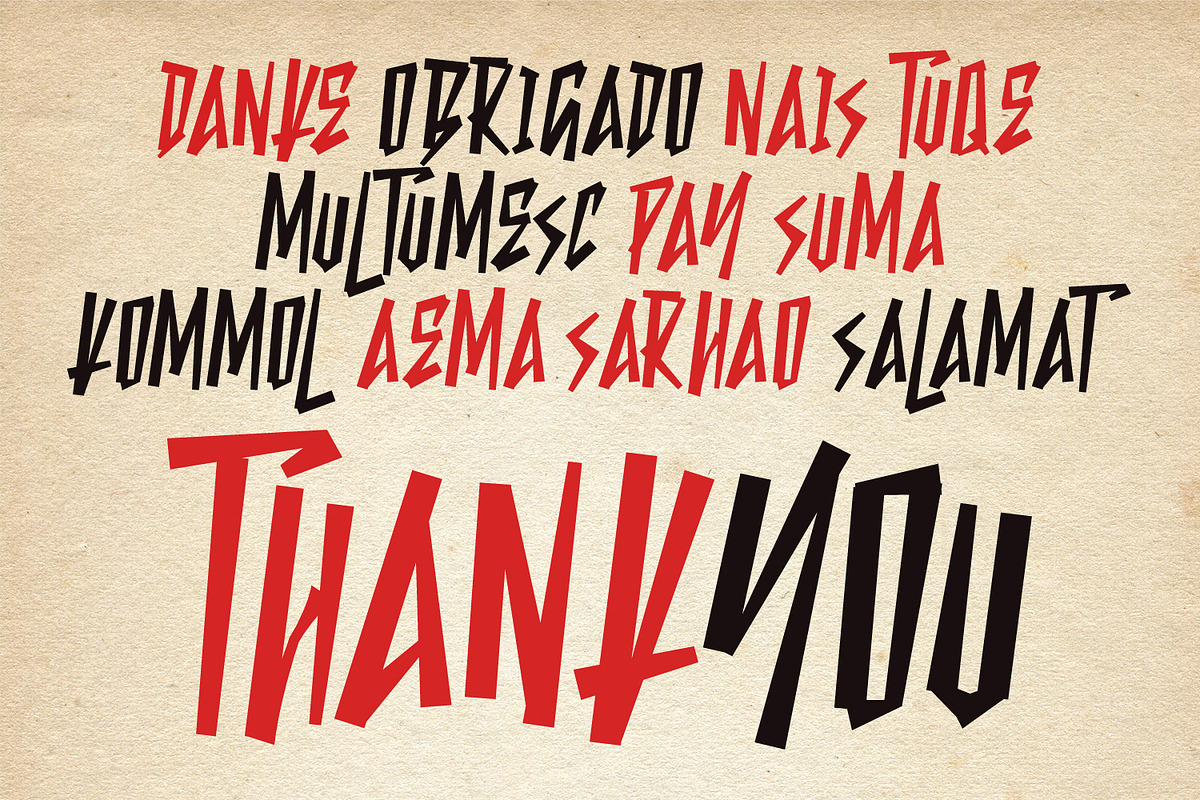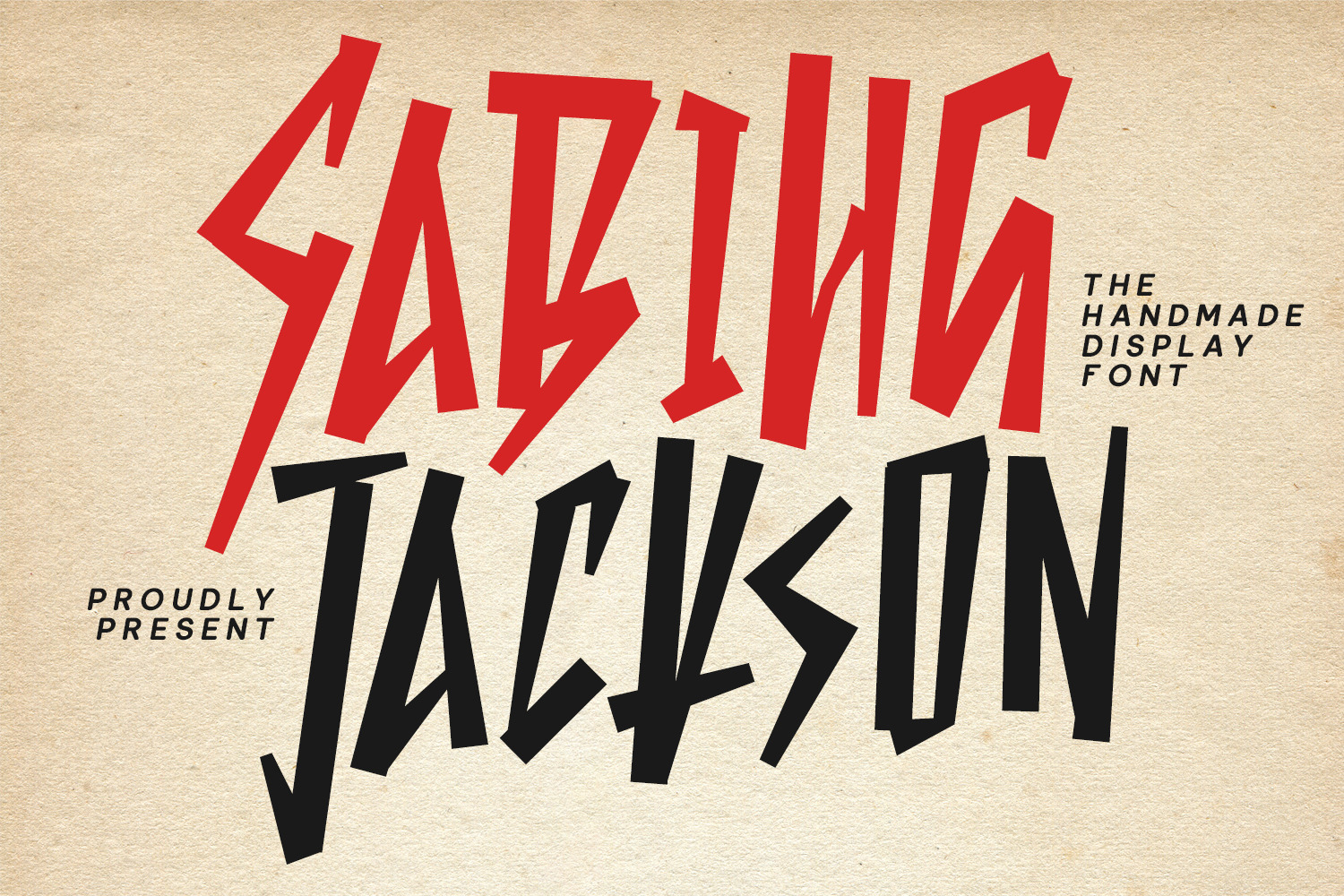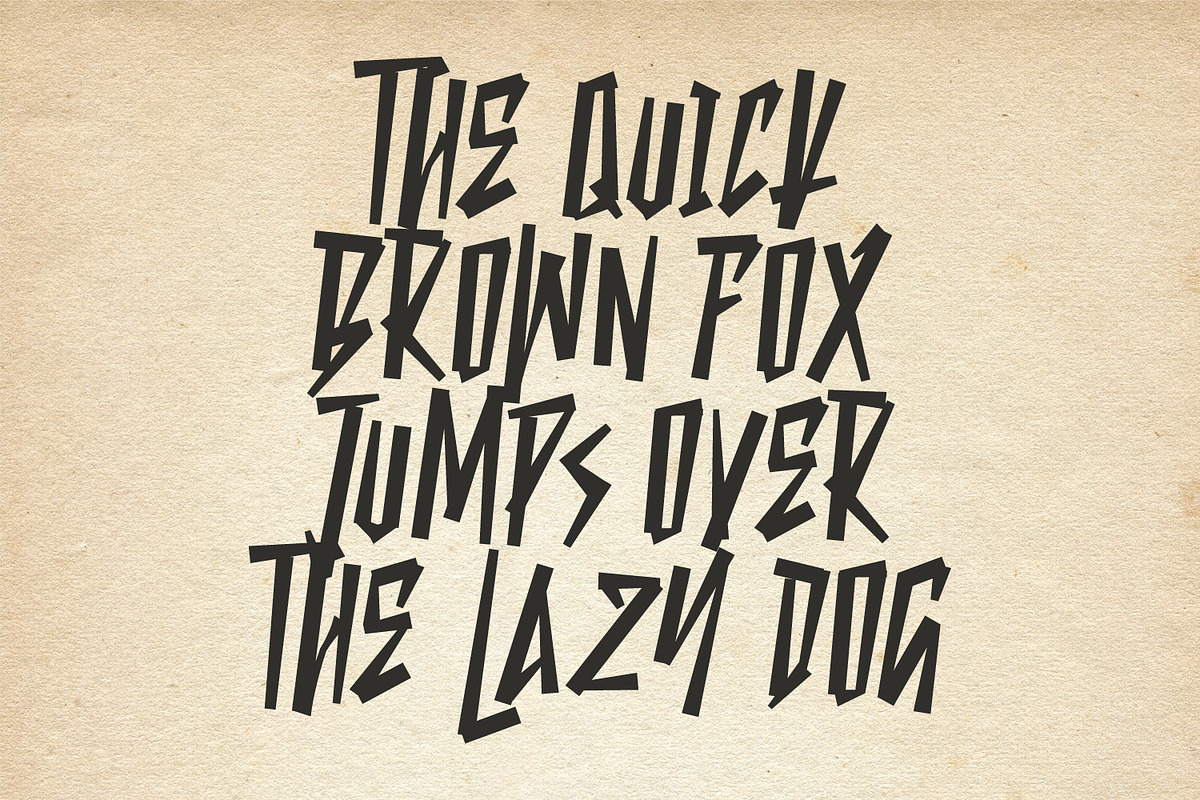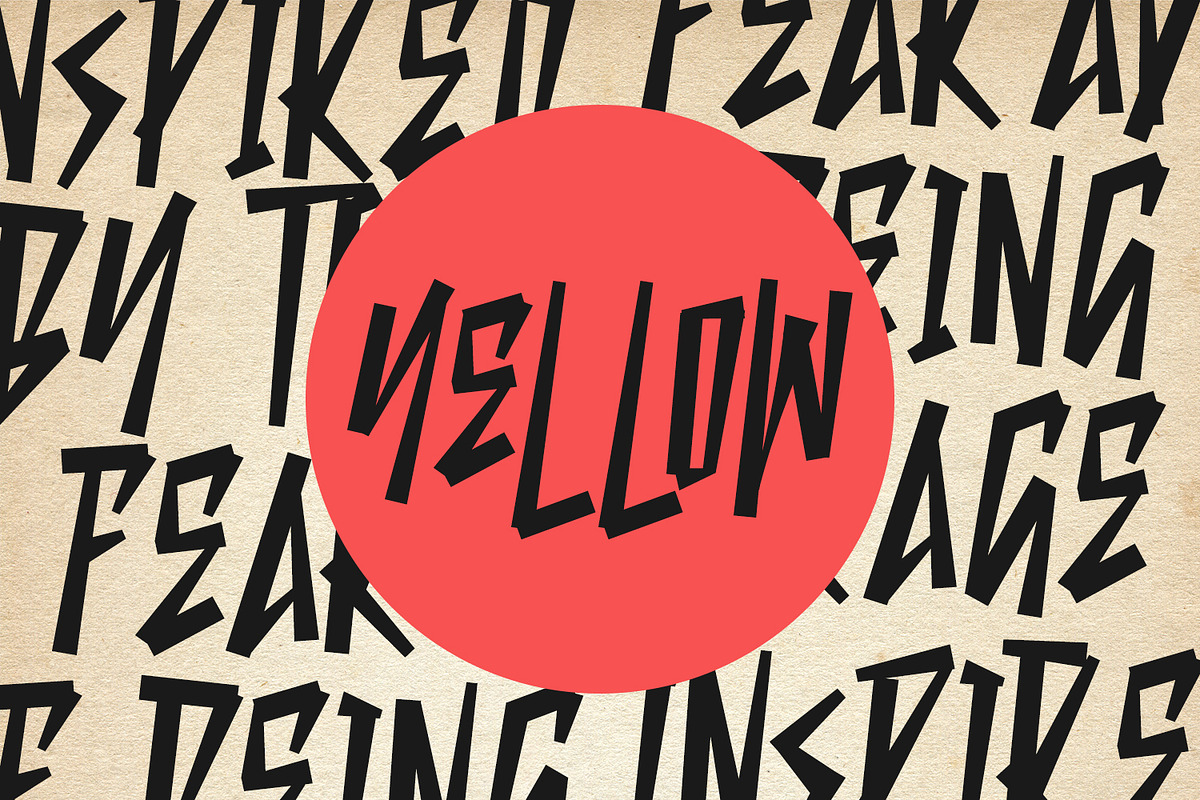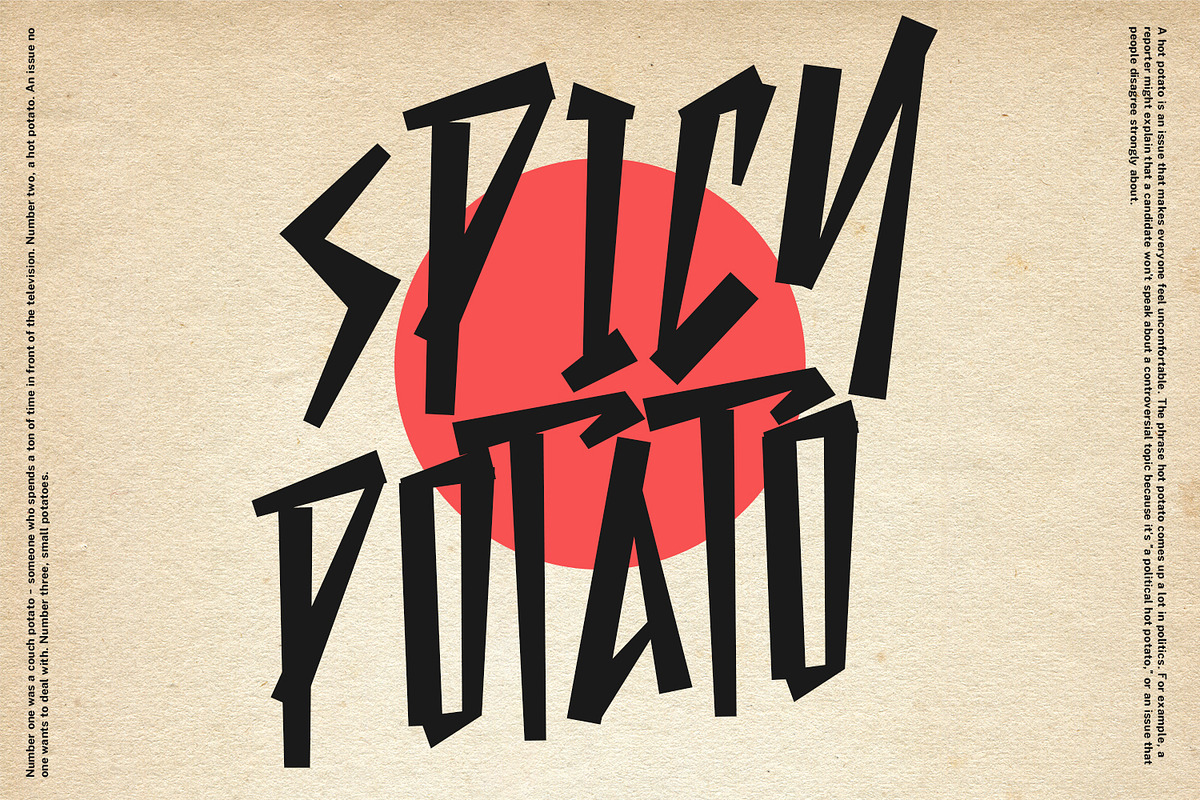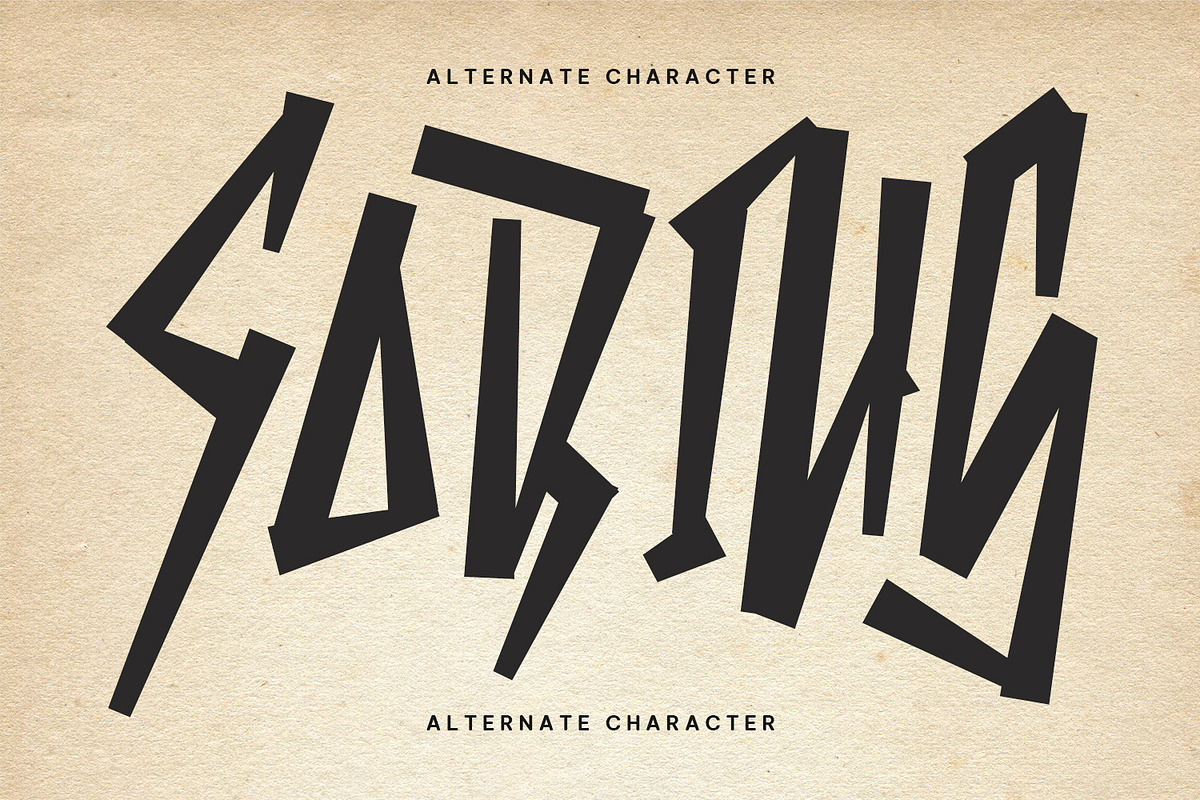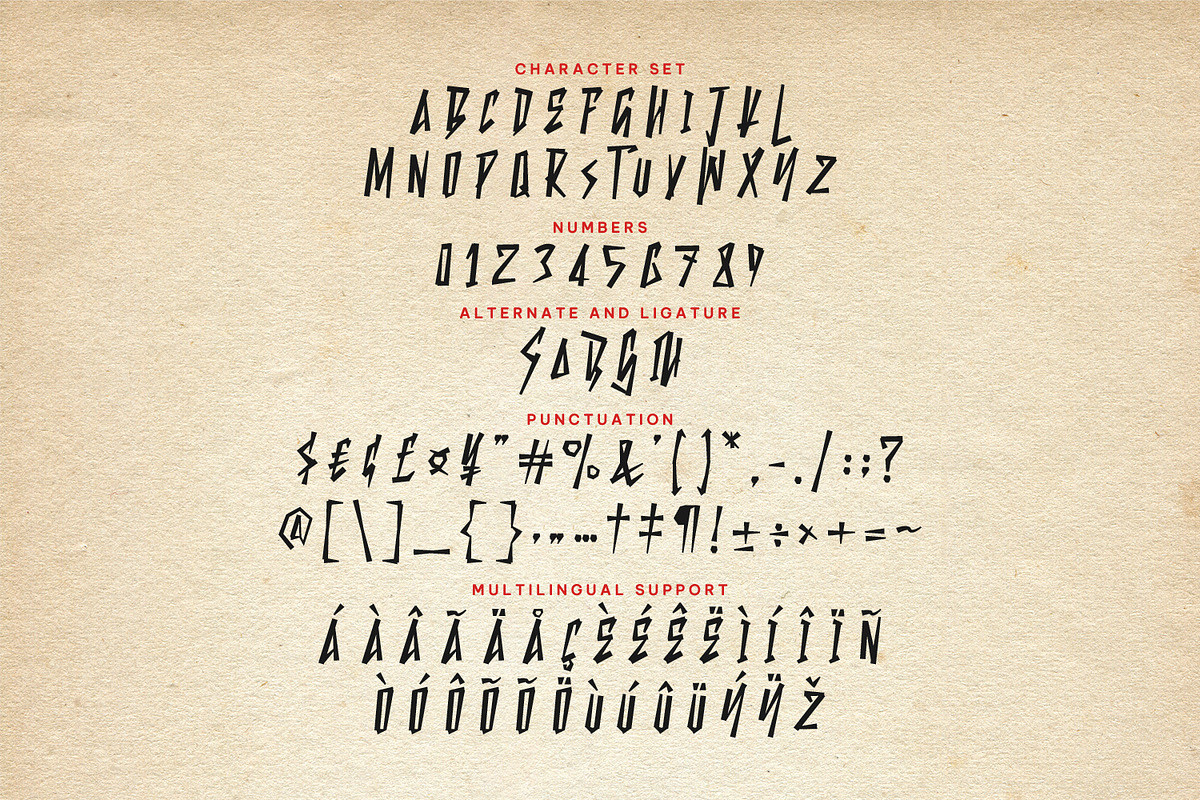
Sabihg Jackson Display Font
Sabihg Jackson handmade display font display, fun character with alternates and ligatures. To give you an extra creative work. Sabihg Jackson handmade display font support multilingual language.